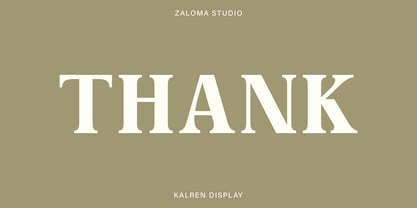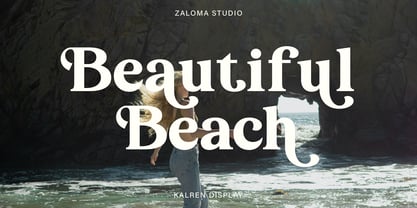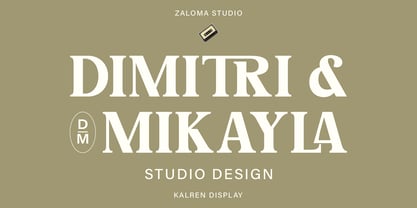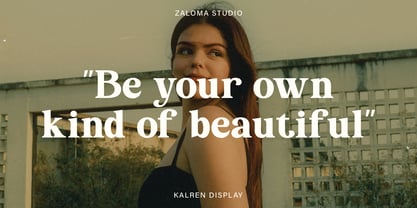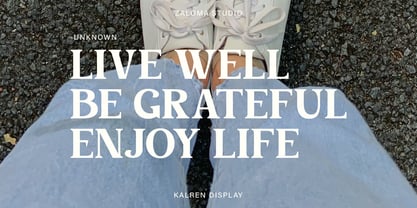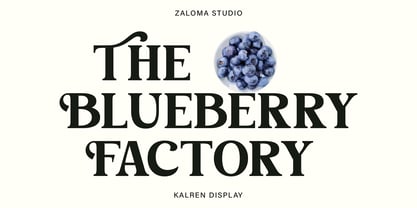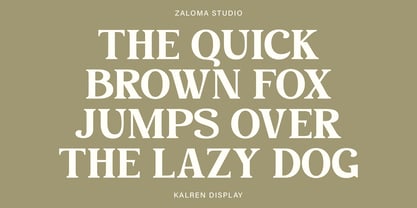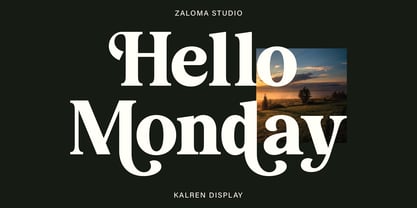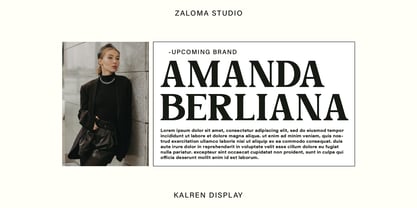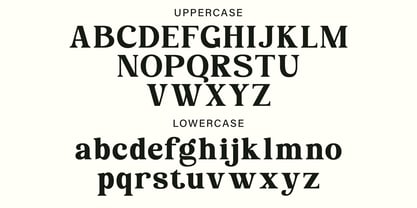
Kalren
by Zaloma Studio
The Kalren Font Family was designed by Mahyudi and published by Zaloma Studio. Kalren contains 1 styles. More about this family
Kalren is a retro-style serif font from Zaloma Studio that exudes a classic and elegant feel. With bold letterforms and decorative touches, this font is perfect for vintage designs, luxury branding, and editorial use. Equipped with alternate characters and harmonious ligatures, Elvokado offers flexibility in creating unique and sophisticated typography. Ideal for posters, premium packaging, and design projects that prioritize a classic aesthetic with a modern touch.
Designers: Mahyudi Mahyudi
Foundry: Zaloma Studio